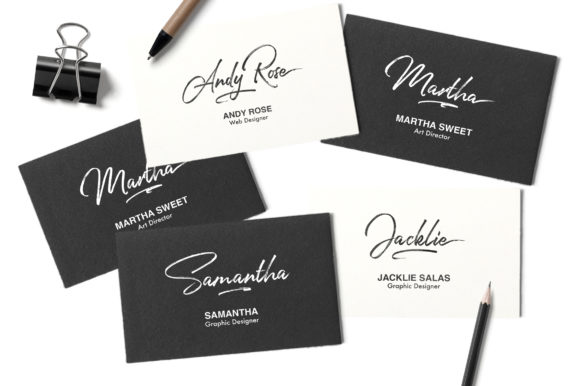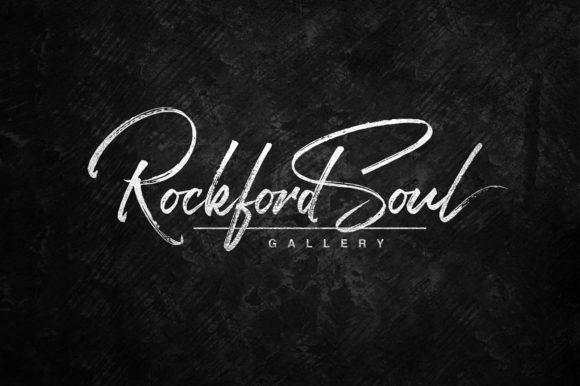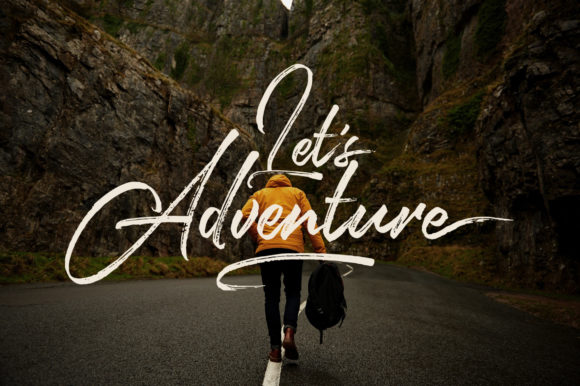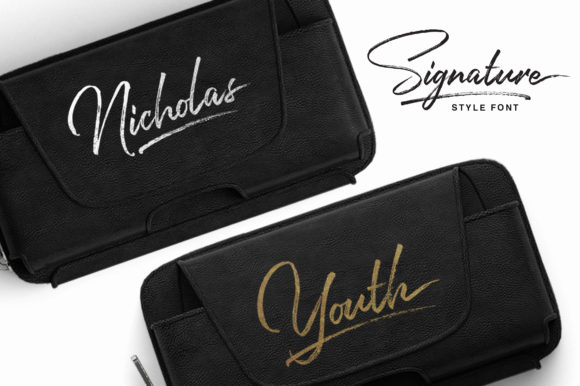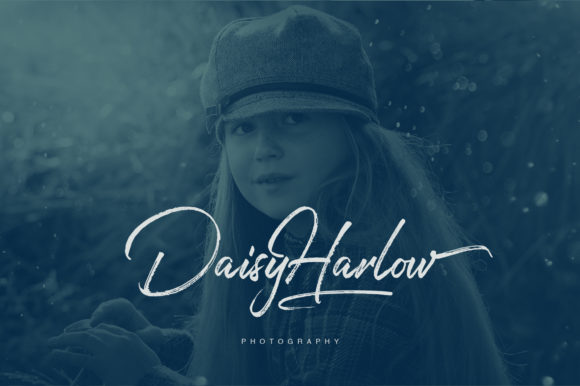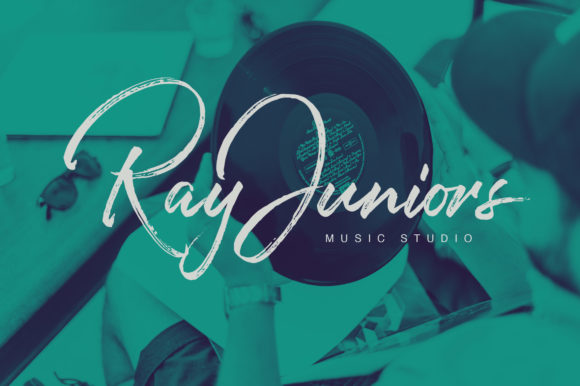
HomeScript FontsJoyful Script Font Script Fonts Joyful Script Font FacebookXPinterestWhatsApp Joyful Script Font Poster 2 Joyful Script Font Poster 3 Joyful Script Font Poster 4 Joyful Script Font Poster 5 Joyful Script Font Poster 6 Joyful Script Font Poster 7 About Joyful Script Font Joyful is a smart and fun handwritten font with a cool twist. Get inspired by its unique charm! DOWNLOAD NOW People also explored Chandler Zainab Font The Bellovia Duo Font Christmas Font Aleante Font Angelicalm Font Coco Font Black Friday Font Some Time Font Perth Font 313 0 TagsJoyful Script Font Previous articleThunder Stone FontNext articleSprightful Font LEAVE A REPLY Cancel reply Comment: Please enter your comment! Name:* Please enter your name here Email:* You have entered an incorrect email address! Please enter your email address here Website: Save my name, email, and website in this browser for the next time I comment. Personal Use Free Calega Personal Use Free Read more about this font Sunflower Personal Use Free Read more about this font Kaylafiz Personal Use Free Read more about this font Callisa Script Personal Use Free Read more about this font BLOG 5 Fonts That Will Dominate Design Trends in 2026 5 Fonts for 2026 That Will Dominate Design Trends Typography plays a critical role in visual communication, and as we look ahead to 2026, it’s... To increase your work productivity, choose the most readable fonts. Modern Sans-Serif Fonts That Brands Love in 2025 Free Fonts Risk: Why Free Fonts Can Be Dangerous for Designers